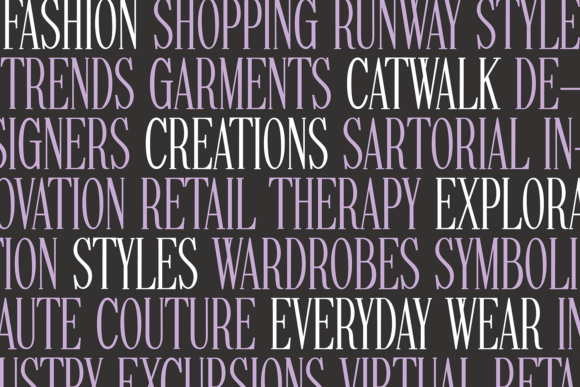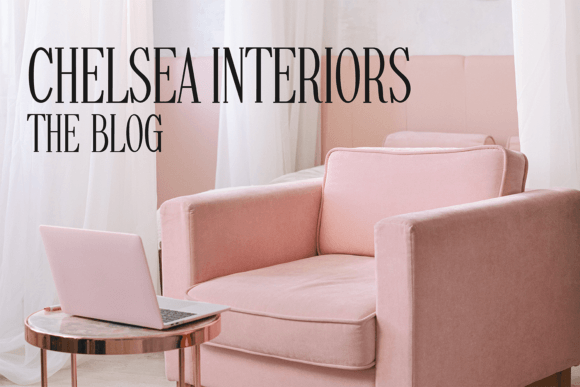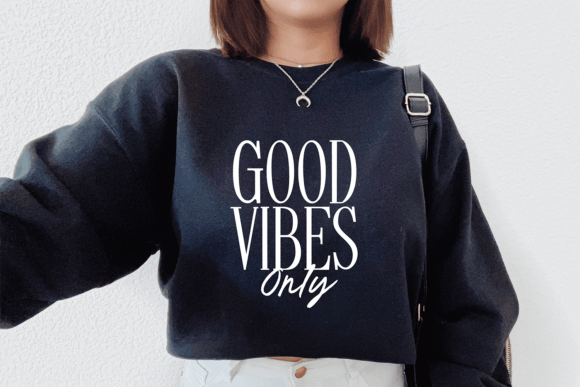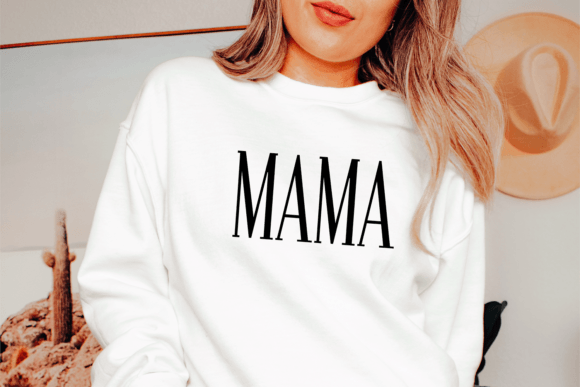
Fashionable Font: Elevate Your Designs with Elegance and Style
In the world of typography, fonts play a crucial role in conveying the tone and personality of a brand or design. For designers and crafters looking to add a touch of elegance and sophistication to their projects, the Fashionables font is an excellent choice. This tall, skinny serif font is not only cute and stylish but also feminine, making it perfect for a wide range of applications.
What is Fashionables Font?
Fashionables is a carefully crafted serif font that exudes elegance and refinement. Its tall and skinny structure gives it a unique and distinctive look, setting it apart from more traditional fonts. The font’s design is characterized by its delicate lines, subtle flair, and a touch of sophistication, making it an ideal choice for designers who want to add a level of luxury to their work.
Key Features of Fashionables Font
• Tall and Skinny Structure: The font’s tall and slender design makes it perfect for headlines, titles, and other display text.
• Serif Details: The subtle serif details add a touch of elegance and sophistication, making it suitable for high-end designs.
• Cute and Stylish: The font’s playful and stylish nature makes it perfect for designs that require a touch of personality.
• Feminine Touch: The font’s feminine design makes it ideal for brands or projects that cater to a female audience.
Use Cases for Fashionables Font
Fashionables font is versatile and can be used in a variety of design projects, including:
• Logos and Branding: The font’s elegant design makes it perfect for logos, business cards, and other branding materials.
• Headlines and Titles: The font’s tall and skinny structure makes it ideal for headlines, titles, and other display text.
• Fashion and Beauty: The font’s feminine and stylish nature makes it perfect for fashion and beauty brands, blogs, and websites.
• Wedding and Event Design: The font’s elegant design makes it suitable for wedding invitations, event branding, and other related design projects.
Tips for Using Fashionables Font
To get the most out of Fashionables font, here are some tips to keep in mind:
• Pair with a Simple Font: Pair Fashionables font with a simple font to create a striking contrast and add visual interest to your design.
• Use for Headlines: Use Fashionables font for headlines and titles to add a touch of elegance and sophistication.
• Experiment with Colors: Experiment with different colors to find the perfect match for your brand or design.
Fashionables font is a stylish and elegant serif font that is perfect for designers and crafters looking to add a touch of sophistication to their projects. Its tall and skinny structure, serif details, and feminine touch make it an excellent choice for a wide range of applications. By following the tips outlined above, you can make the most of Fashionables font and elevate your designs to the next level.